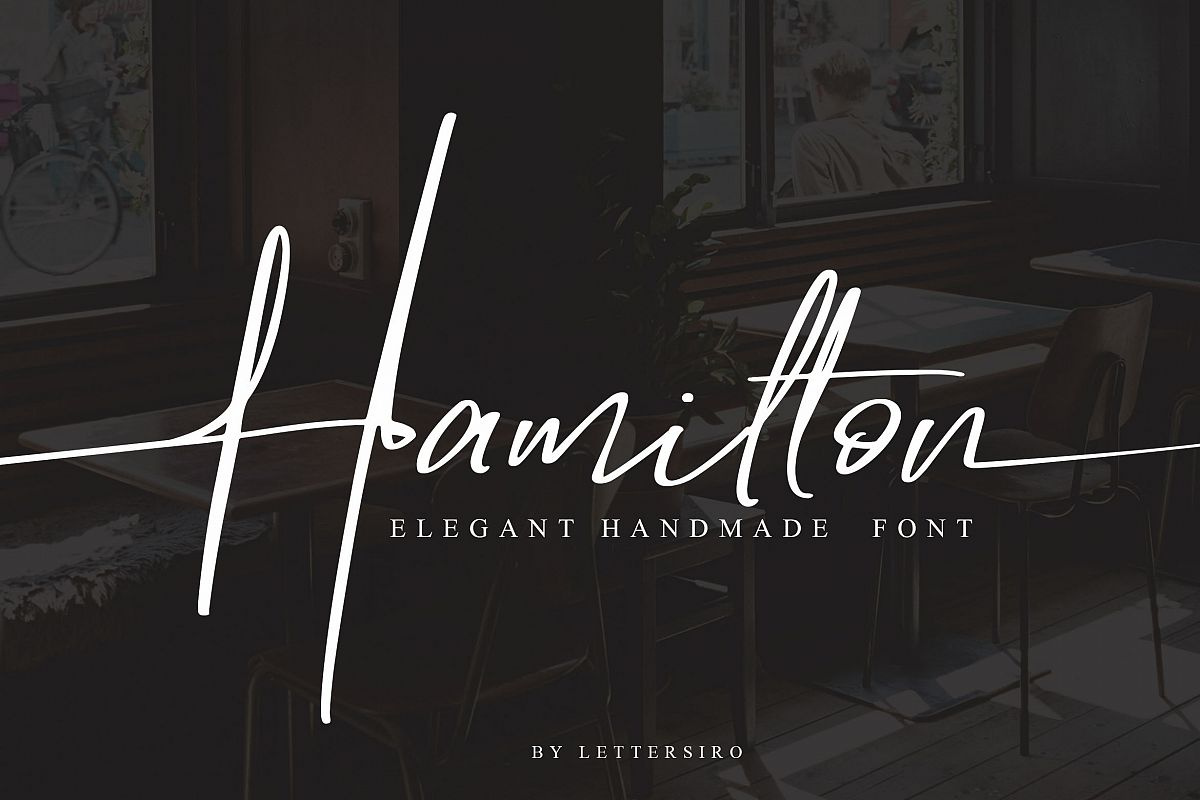
Hamilton Elegant Signature Font
The Hamilton Elegant Signature Font excels in distinguished design applications including heritage brand identities, aristocratic business logos, prestigious wedding invitations, luxury product packaging, formal correspondence, distinguished certificates, elegant business cards, refined portfolios, upscale event signage, and sophisticated marketing materials. Its aristocratic script style makes it perfect for projects requiring stately elegance that communicates heritage and establishes prestigious brand positioning with audiences seeking traditional sophistication and historical refinement.
What makes the Hamilton Elegant Signature Font genuinely exciting is its exceptional ability to capture the grandeur and sophistication of American founding elegance through masterfully crafted letterforms. The font features flowing, stately strokes with distinguished flourishes and presidential proportions that create a distinctly aristocratic appearance. Each character displays extraordinary attention to historical detail with noble curves, distinguished connections, and stately spacing that give text a prestigious, hand-lettered quality reminiscent of founding fathers' correspondence. The font's aristocratic character and dignified rhythm create an atmosphere of timeless distinction while maintaining approachable sophistication.
The Hamilton Elegant Signature Font family typically includes regular weight with comprehensive character sets, featuring uppercase and lowercase letters, numerals, punctuation, and international glyphs. The typeface often incorporates stylistic alternates, contextual ligatures, and aristocratic swashes that enhance its signature nobility. These additional elements provide designers with creative options to customize text appearance and achieve more natural-looking distinguished handwriting that reflects the font's stately and prestigious character.
This prestigious signature font captivates refined audiences through its remarkable balance of historical grandeur and contemporary accessibility. Unlike pretentious fonts that can appear unapproachable, Hamilton Elegant Signature Font embraces classical American elegance while maintaining readability and professional polish. The font's stately character makes it ideal for heritage brands, legal institutions, and prestigious projects where conveying established credibility and historical values is essential for building trust with discerning audiences who appreciate traditional American sophistication.